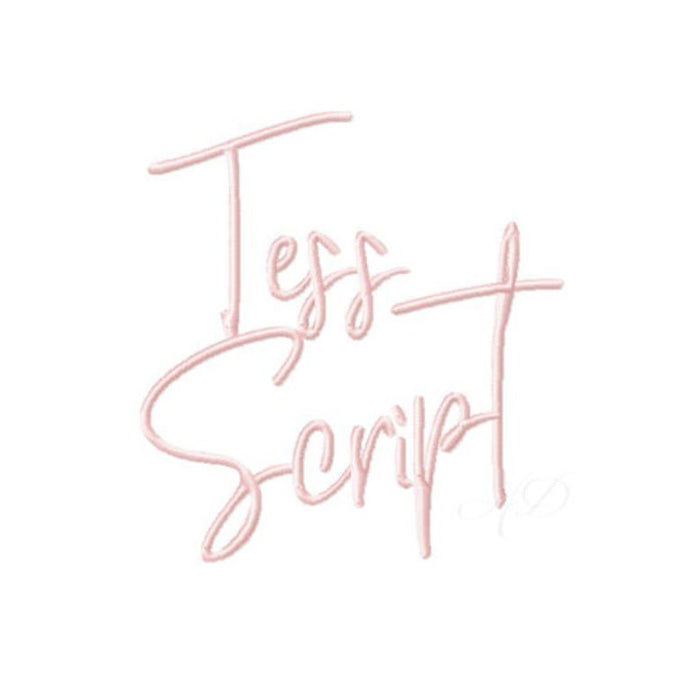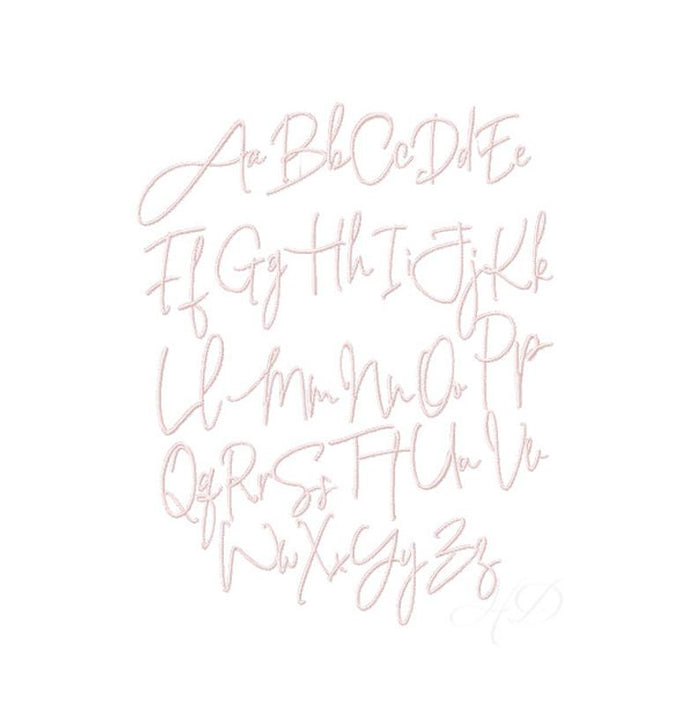
Tess Script Embroidery Font - 4x4 Hoop - 6 Sizes
Elevate your crafting projects with the Tess Script Embroidery Font, a modern signature handwriting style perfect for monogramming. This font package includes 6 sizes, all designed to fit inside a 4x4 embroidery hoop. The included sizes are .5", 1", 1.5", 2", 2.5", and 3", featuring both upper and lowercase letters.